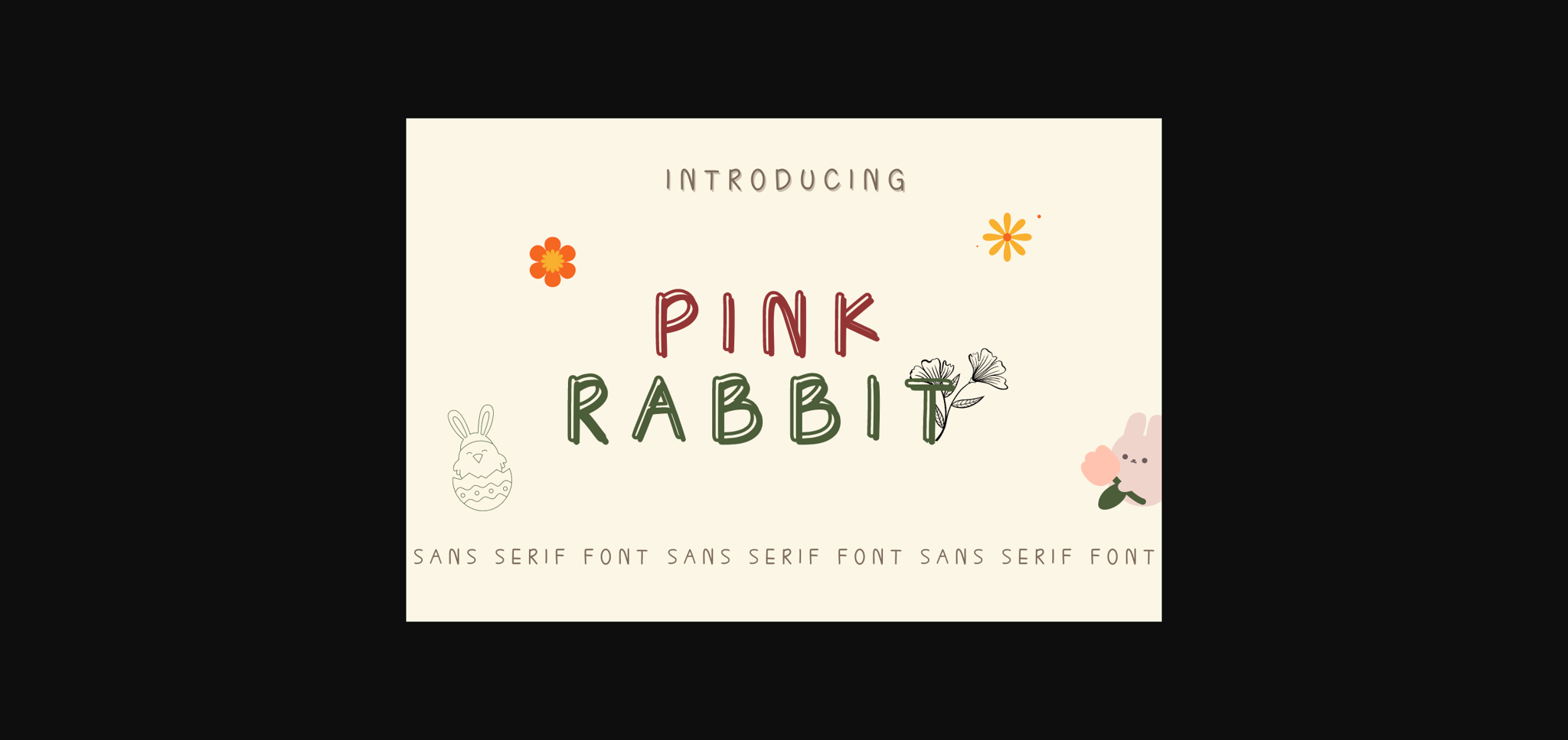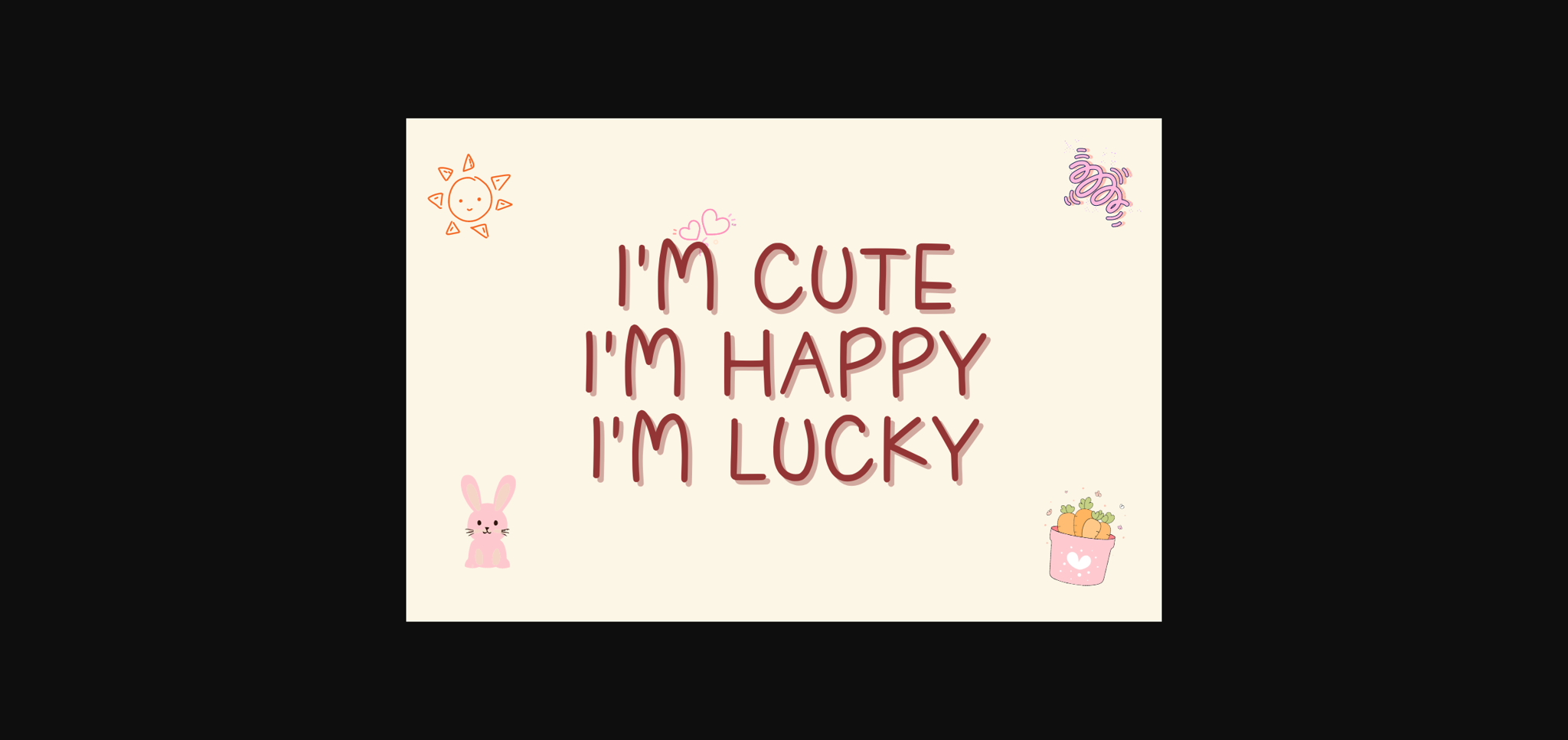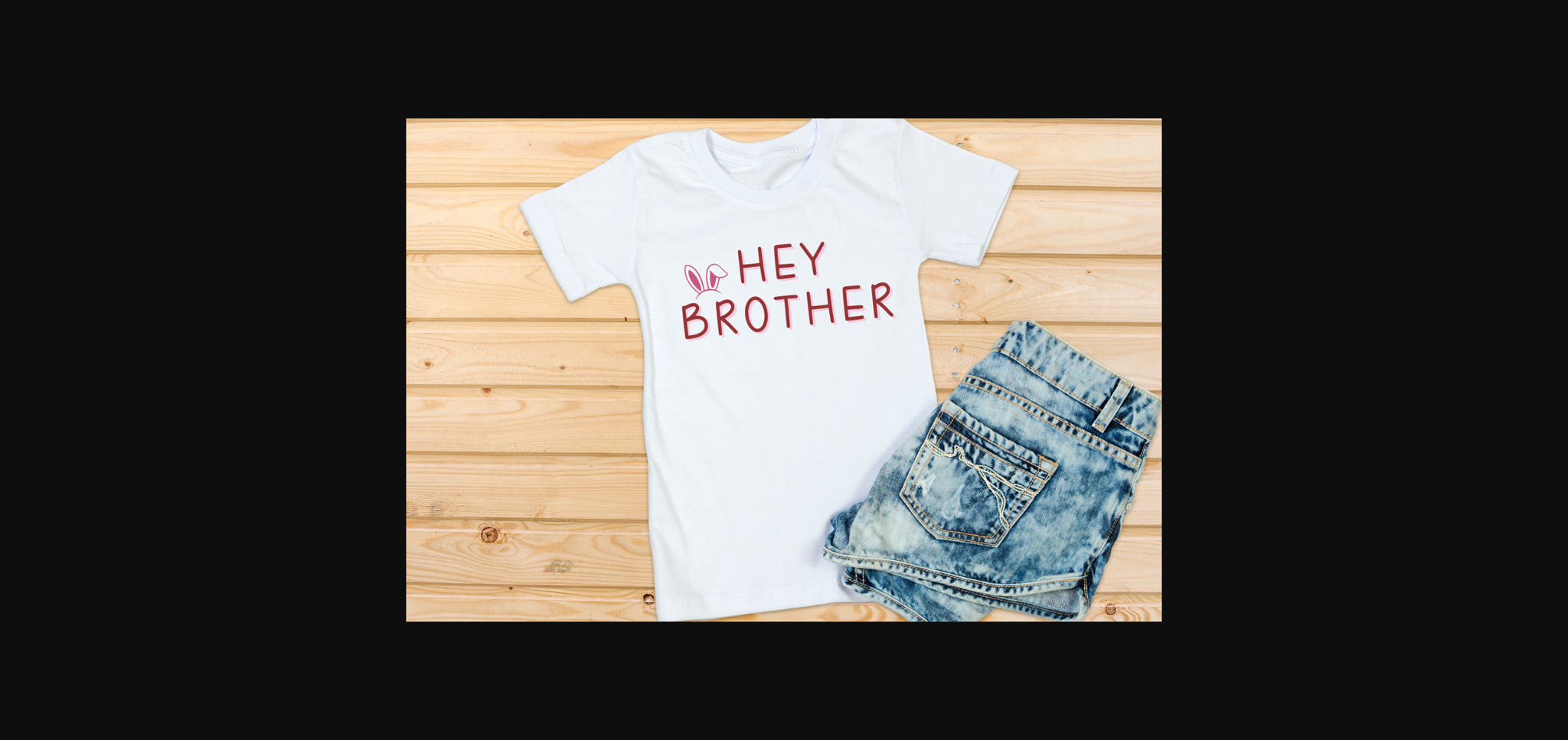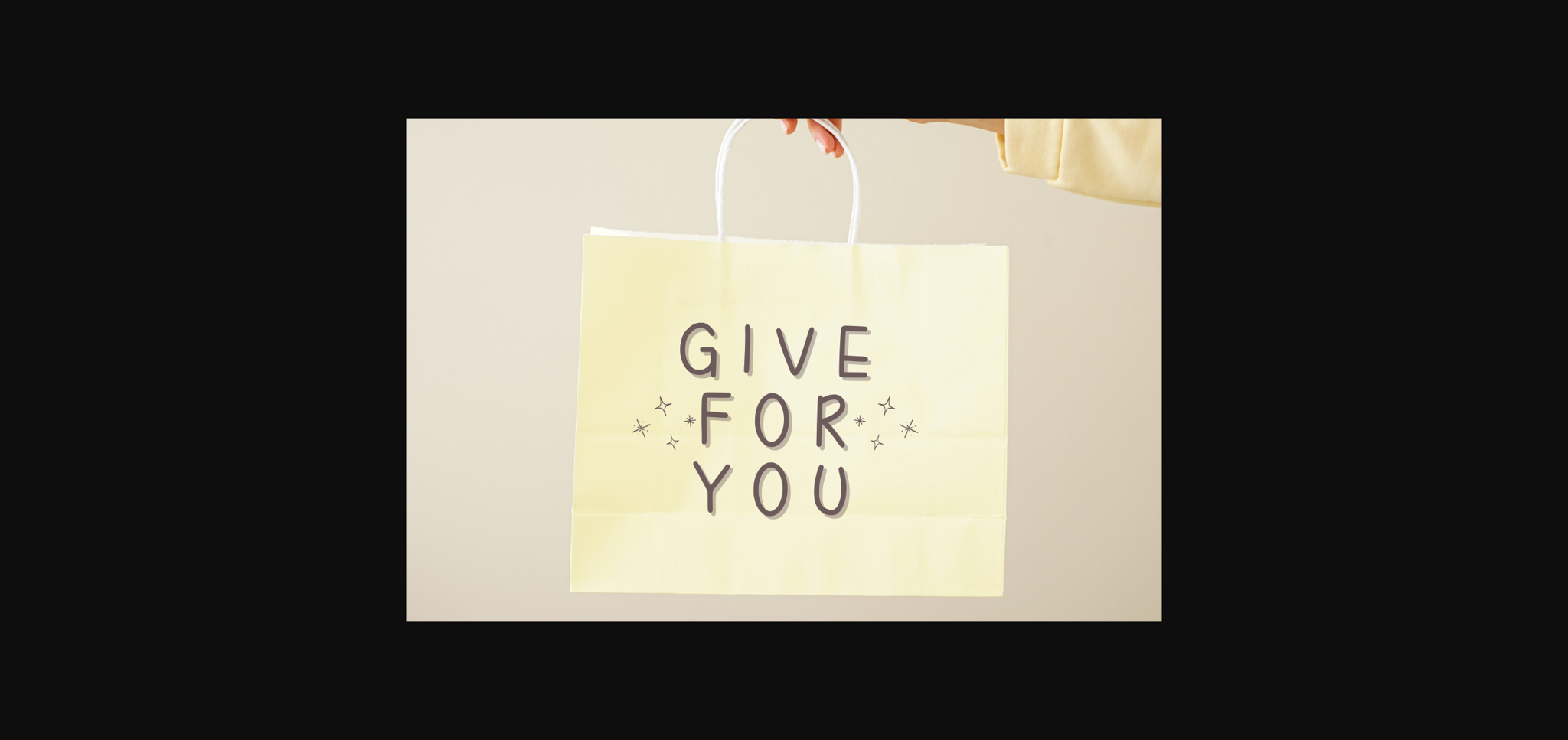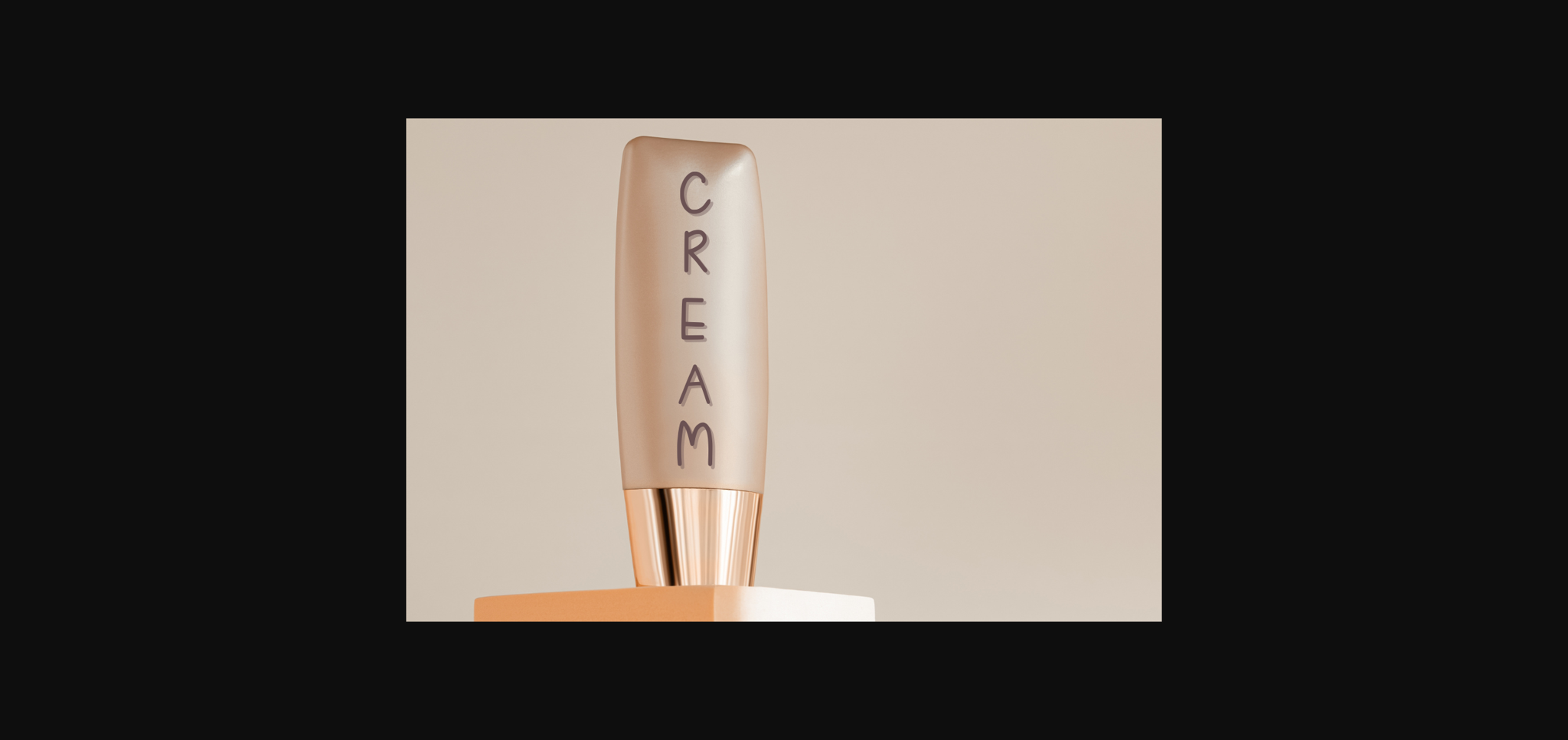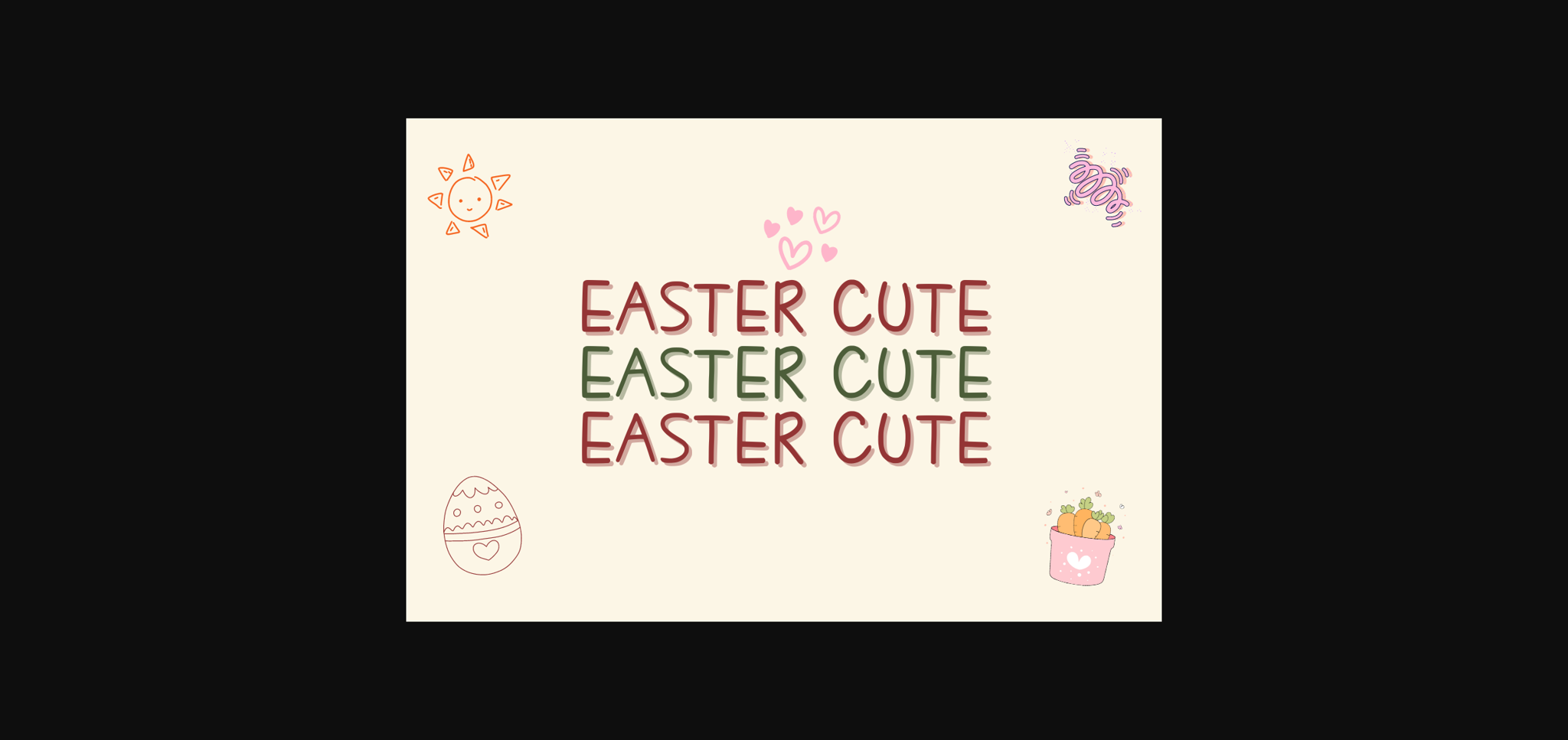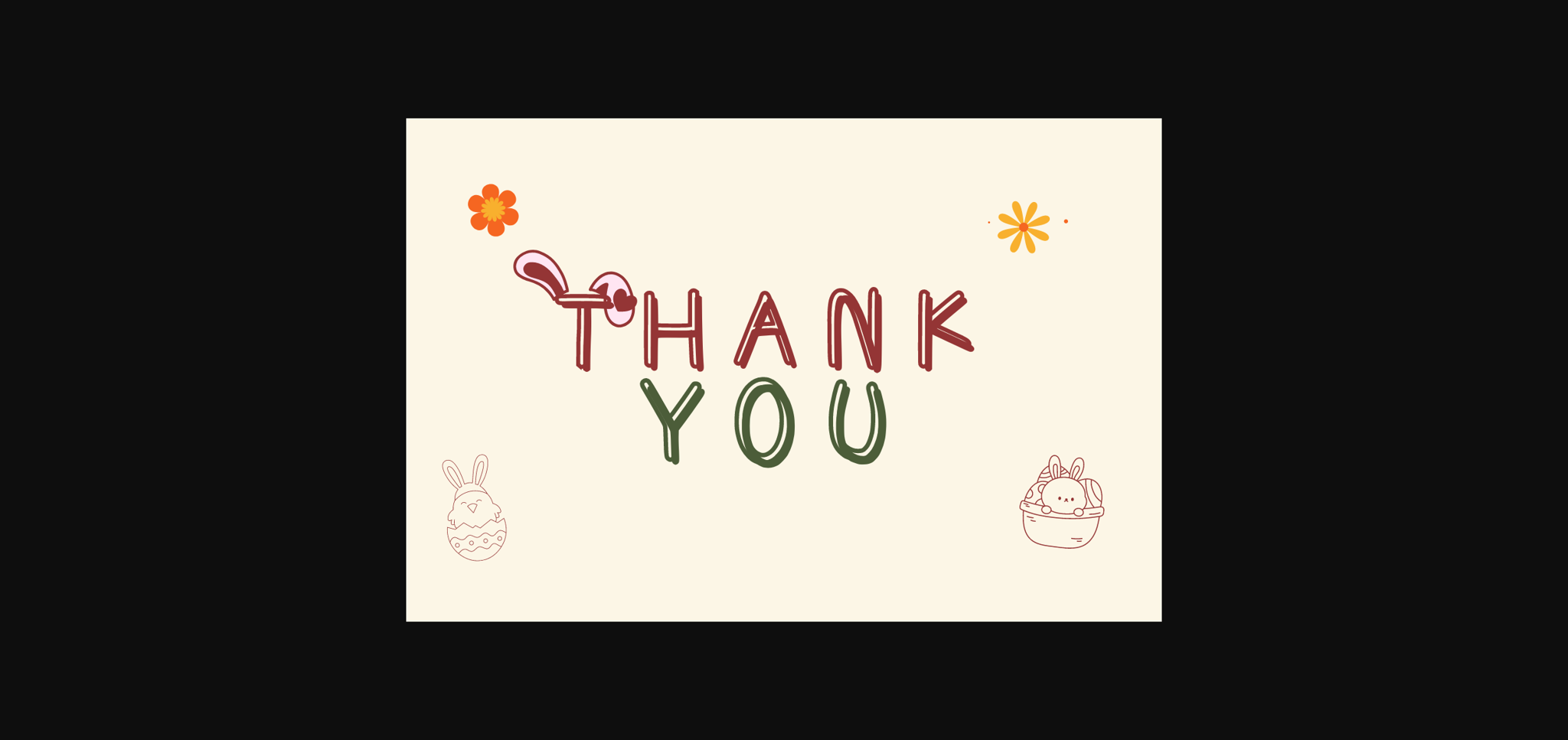
HomeSans Serif FontsPink Rabbit Font Sans Serif Fonts Pink Rabbit Font FacebookXPinterestWhatsApp 1 of 9 ... Pink Rabbit Font Poster 2... Pink Rabbit Font Poster 3... Pink Rabbit Font Poster 4... Pink Rabbit Font Poster 5... Pink Rabbit Font Poster 6... Pink Rabbit Font Poster 7... Pink Rabbit Font Poster 8... Pink Rabbit Font Poster 9... About Pink Rabbit Font Pink Rabbit is a cute and adorable sans serif font. Perfect for social media, posters, stickers, notebooks and so much more. DOWNLOAD NOW People also explored Beslatty Font Palmspring Font Gentlysoftly Font Mackarel Font Giraffe Font Aisyah Font Slabs Javinka Font Bouffly Alice Medium Font 298 0 TagsPink Rabbit Font Previous articleGnome Easter FontNext articleLove Teacher Font LEAVE A REPLY Cancel reply Comment: Please enter your comment! Name:* Please enter your name here Email:* You have entered an incorrect email address! Please enter your email address here Website: Save my name, email, and website in this browser for the next time I comment. Personal Use Free Still Time Personal Use Free Read more about this font Bollado Personal Use Free Read more about this font Kaysan Personal Use Free Read more about this font Septhine Personal Use Free Read more about this font BLOG Best Fonts for T-Shirt Design – Top 2025 Picks In 2025, t-shirt design has become more than just fashion—it's a form of self-expression. Whether you're... Transform Your Website: Elevate Your Typography with 7 Best Web Font Generators 5 Fonts That Will Dominate Design Trends in 2026 Fonts That Capture the Spirit of New York City